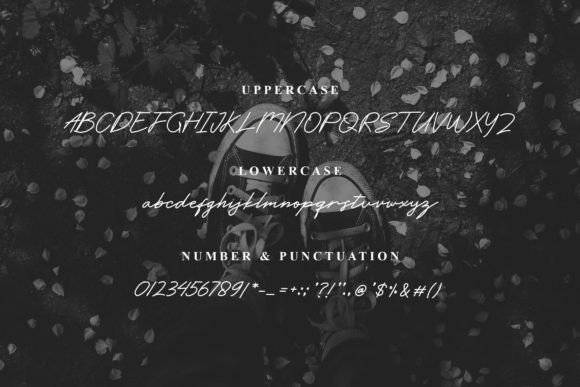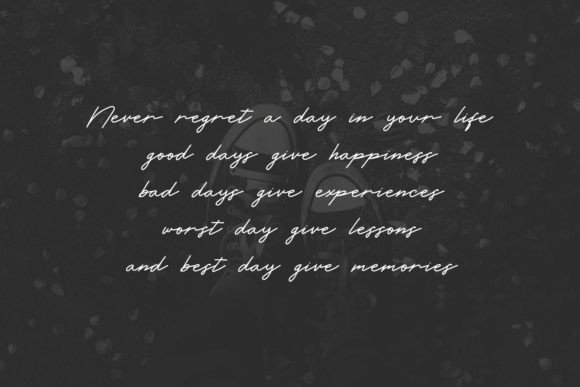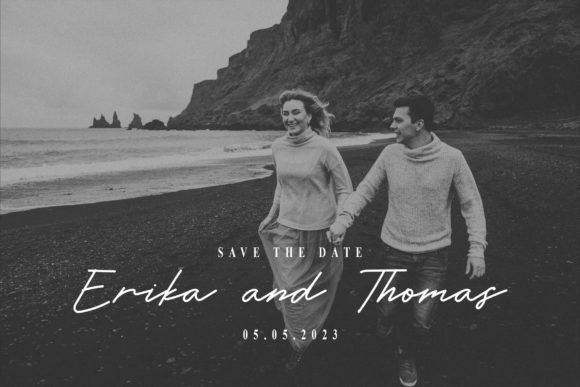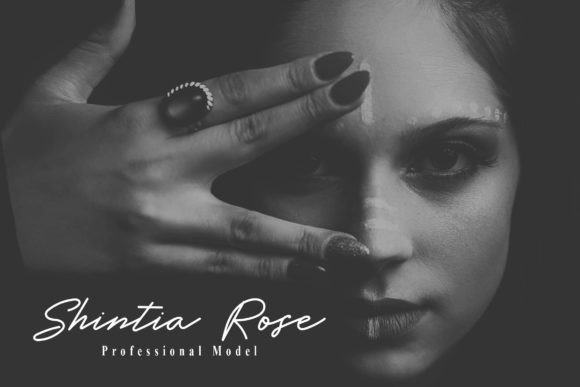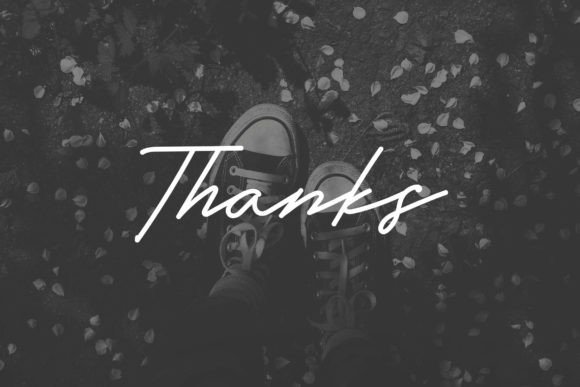
Introduction to Rekasa Font
Rekasa is a cute and fun script font with a strikingly authentic feel font is our new item that is suitable for your Posters.
Great for Logo, Poster, Sticker, Jerseys, Invitation Cards, Brochure, etc .